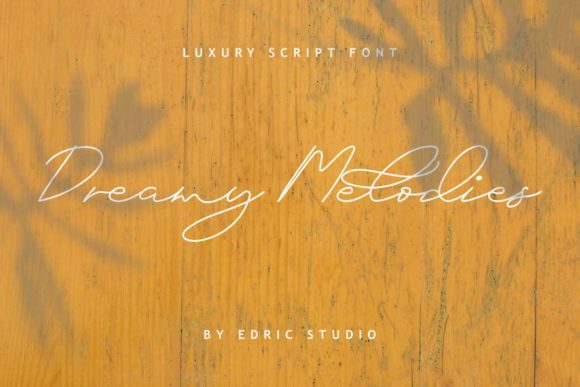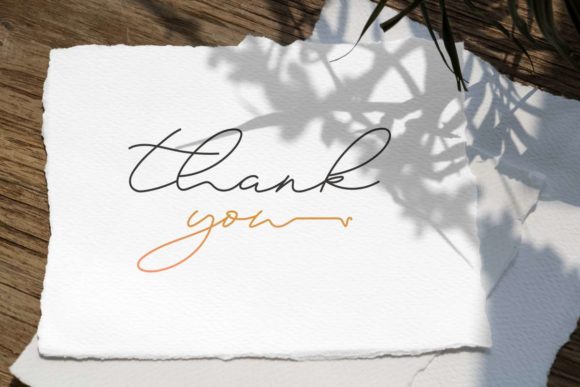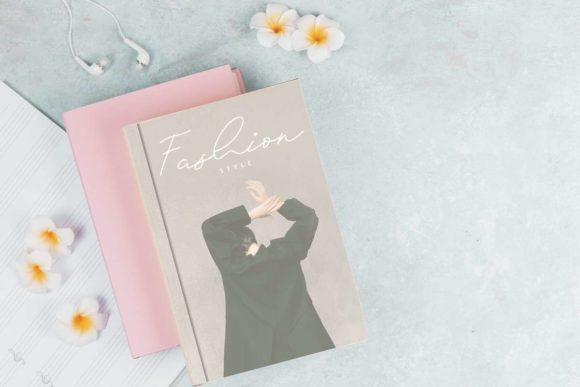
About Dreamy Melodies Font
Dreamy Melodies is a relaxed, romantic and unique handwritten font. It is PUA encoded which means you can access all of the glyphs and swashes with ease! Every letter has a unique and beautiful touch, which will make your design come alive!